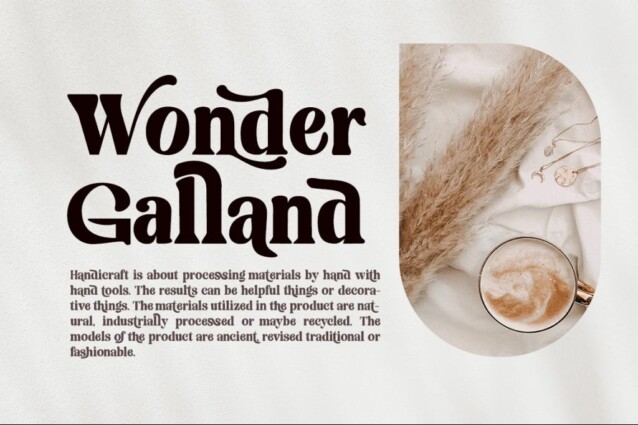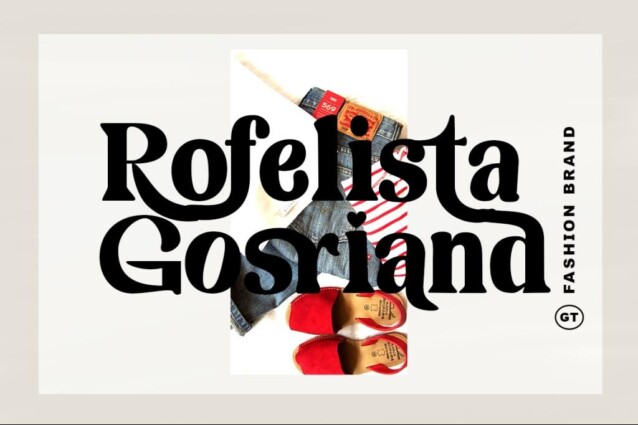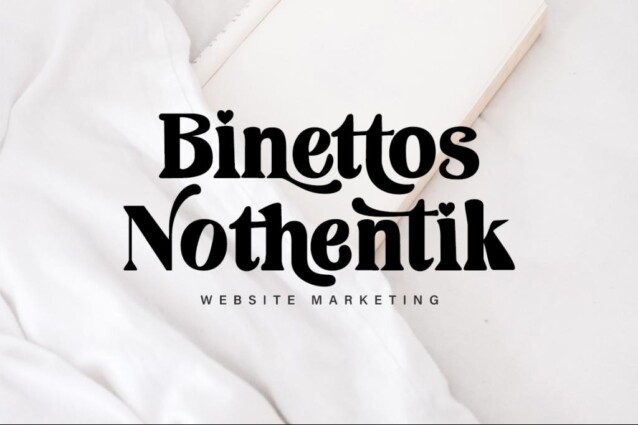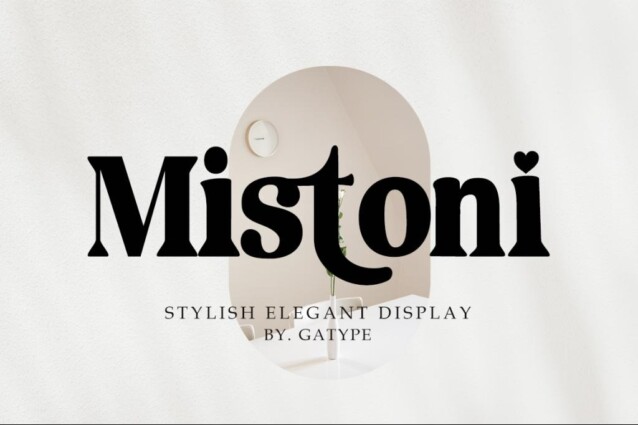
Mistoni Font
Mistoni Font is cute retro serif typeface inspired by the bold, natural look of serifs so beautiful for today’s fashion. bold, balanced and varied, born for luxury and beauty. including uppercase letters, numbers, and various kinds of punctuation Mistoni is perfect for invitations, logos & branding, photography, advertising, watermarks, social media posts, product packaging, product designs, labels, wedding designs, stationery, special events or anything else needed to create a theme.